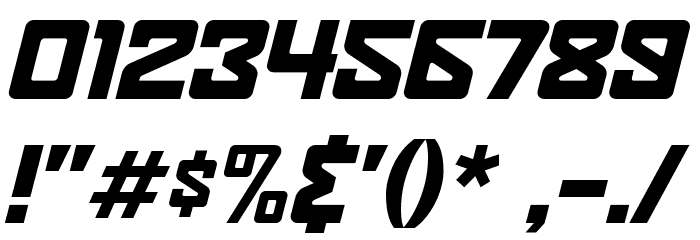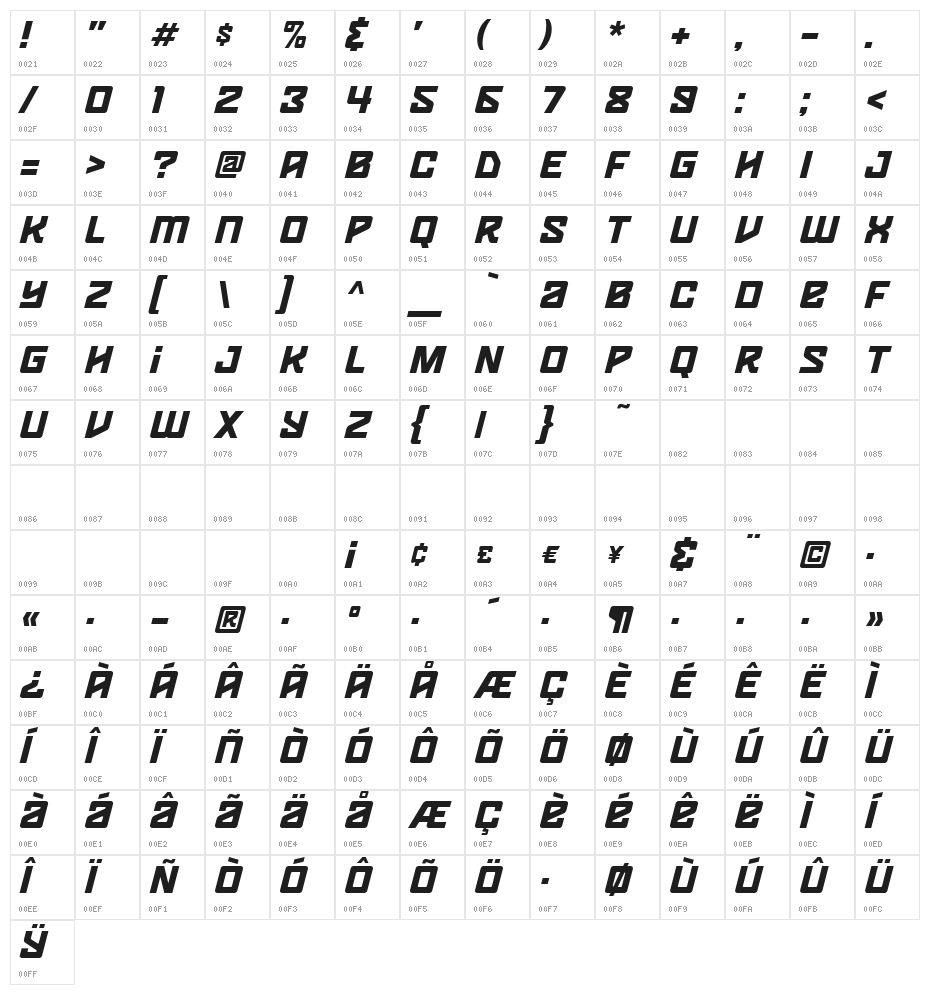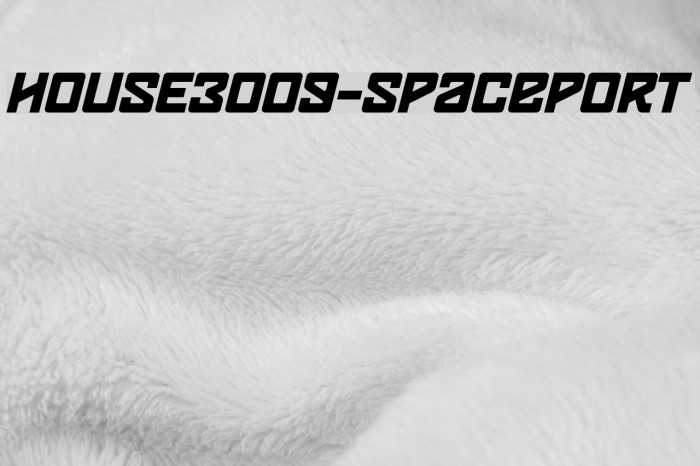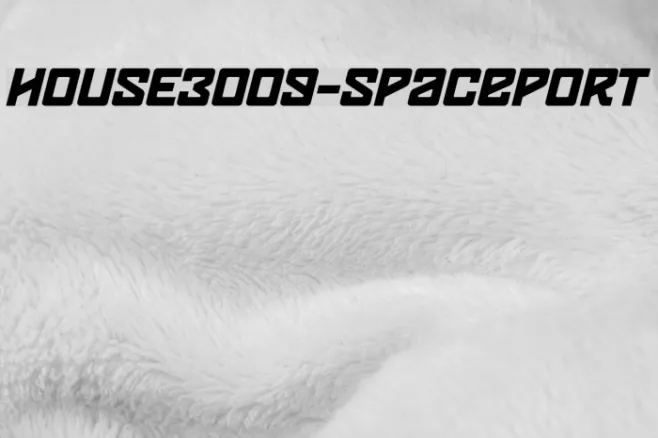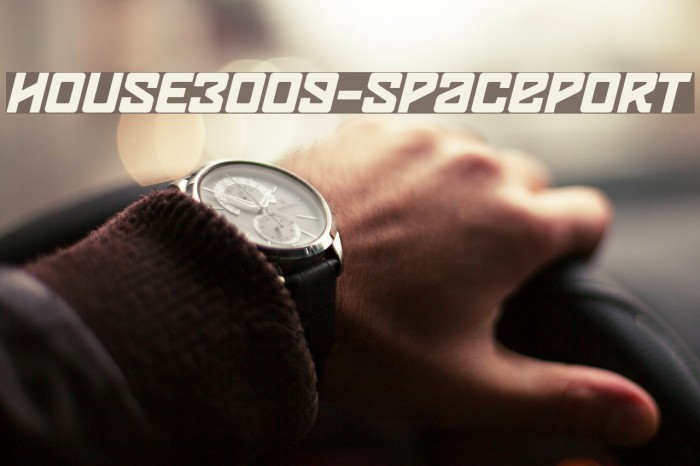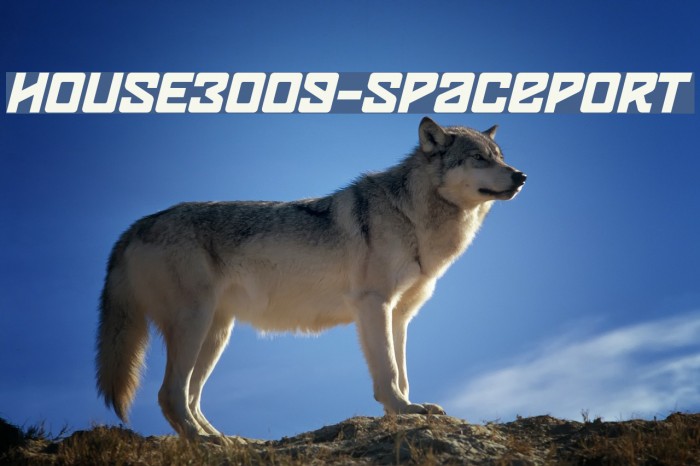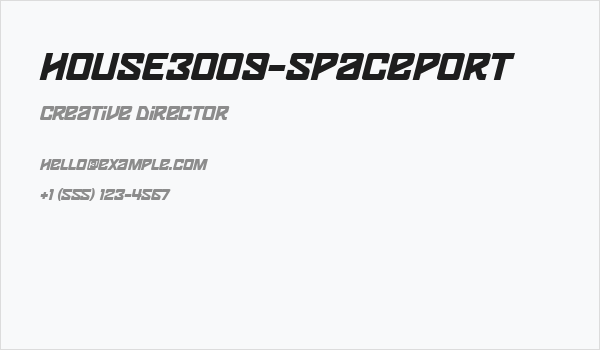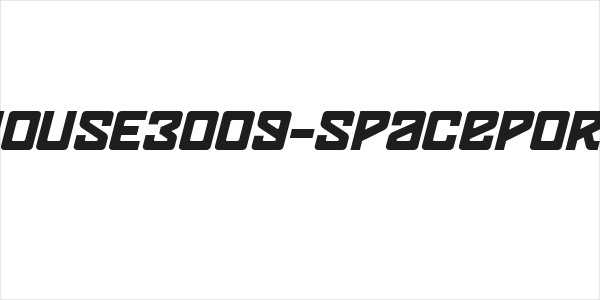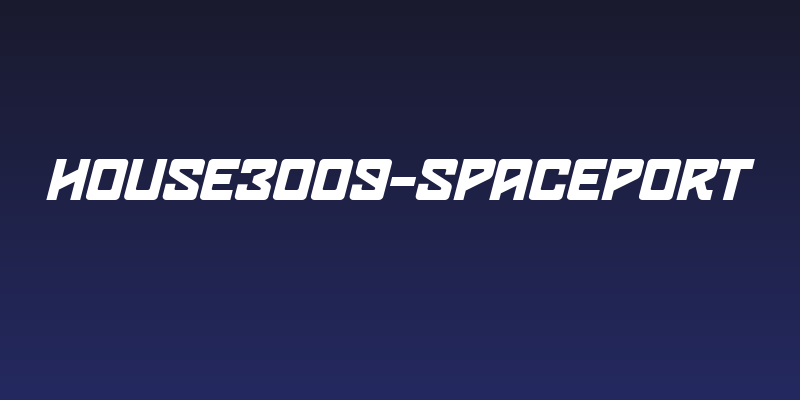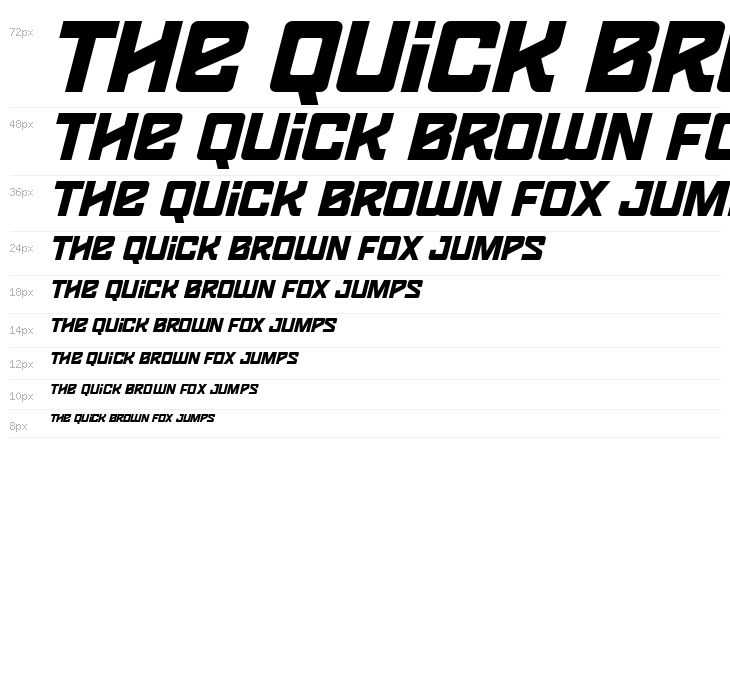
HOUSE3009-Spaceport Font
HOUSE3009-Spaceport Description
This font features a futuristic and angular design, characterized by its bold and dynamic letterforms. The characters have a distinct slant, giving them a sense of motion and speed. The strokes are thick and consistent, providing a strong visual impact. The overall appearance is modern and sleek, suitable for conveying a sense of technology and innovation. The font includes a full set of uppercase and lowercase letters, numerals, and a variety of special characters, making it versatile for various design needs.
| Proposed Projects | Ideal for sci-fi themed projects, technology branding, video game titles, and futuristic posters. |